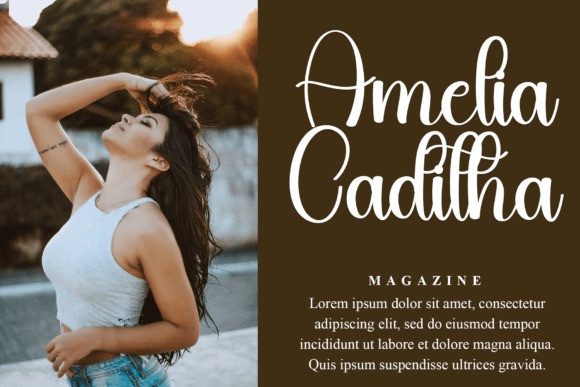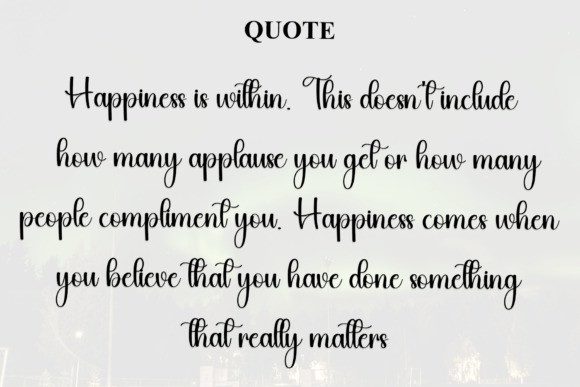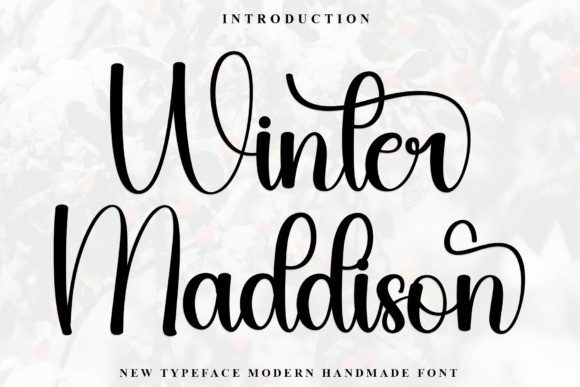
Winter Maddison Font
Winter Maddison Font is a lovely and timeless handwritten font. It is the best choice for creating eye catching logos, branding and quotes. Every letter has a unique and beautiful touch, which will make your design come alive!